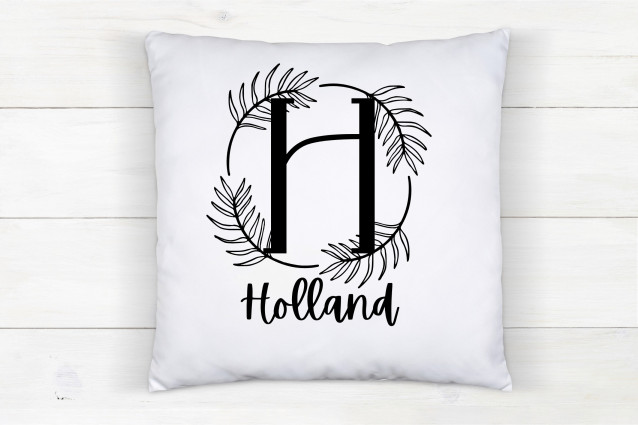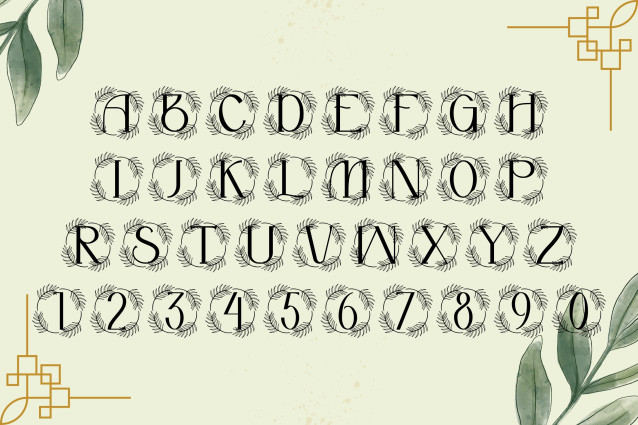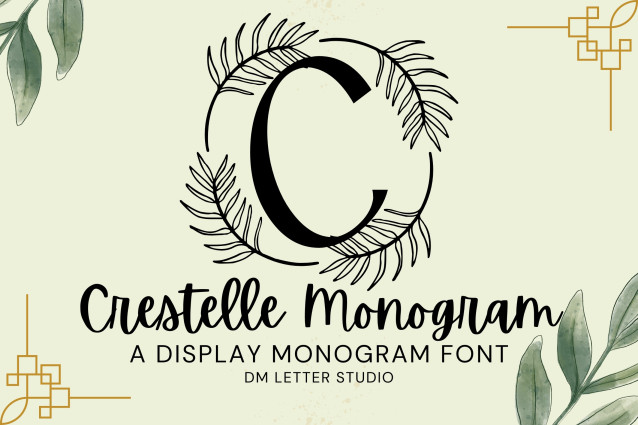
Crestelle Monogram Font
Crestelle Monogram Font is an elegant serif monogram font designed to bring sophistication and charm to your creative projects. Each uppercase letter is beautifully crafted with refined botanical-inspired accents, giving it a timeless appeal that balances classical design with organic details. Whether you’re working on weddings, boutique branding, packaging, or personalized stationery, Crestelle Monogram delivers luxury and style with every letter.
The strength of Crestelle Monogram lies in its versatility. Its structured serif base ensures clarity and professionalism, while the decorative flourishes add a unique personality. This makes it ideal for logos, wedding invitations, event signage, personalized gifts, and Cricut/Silhouette crafts. Designers and crafters alike will find it a powerful choice for creating monogram-focused projects that need elegance with a modern twist.
The graceful balance between its serif structure and botanical flair ensures that Crestelle Monogram adapts beautifully to upscale branding, wedding design, luxury packaging, or boutique product labels. Its polished look makes it a reliable addition to any creative toolkit.